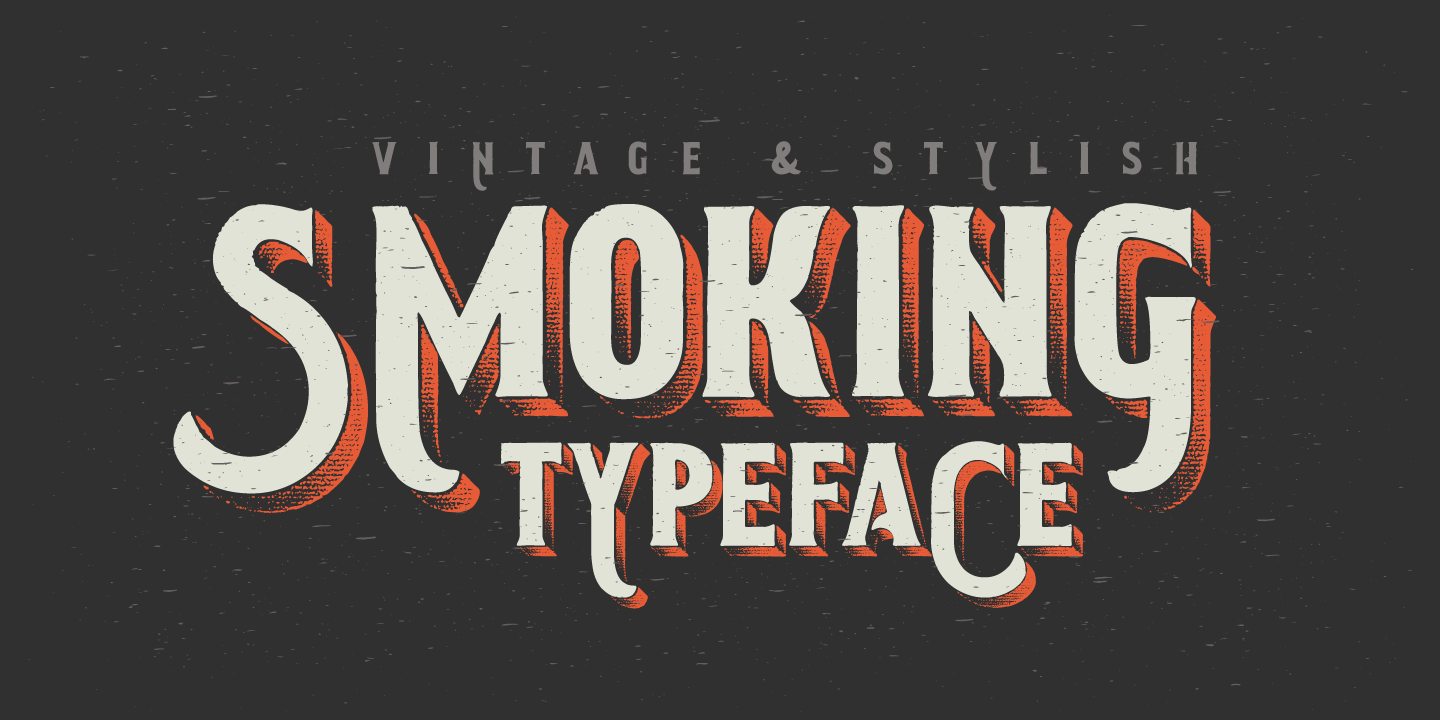
Smoking Typeface Font Free Download is a bold and edgy typeface designed to give your projects a rebellious and stylish character. With its strong lines and distinctive design, it’s perfect for branding, posters, music covers, and any creative work that demands attitude and presence.
Whether you’re creating urban streetwear logos, bold headlines, or striking advertising campaigns, Smoking Typeface Font Free Download delivers a smoky, confident vibe that captures attention instantly. Its unique style makes your typography stand out in both print and digital media.